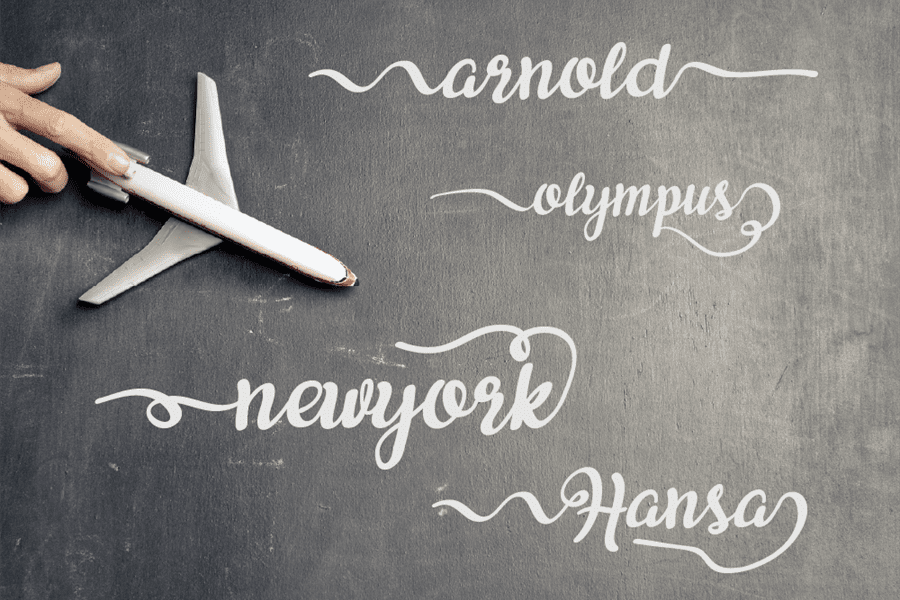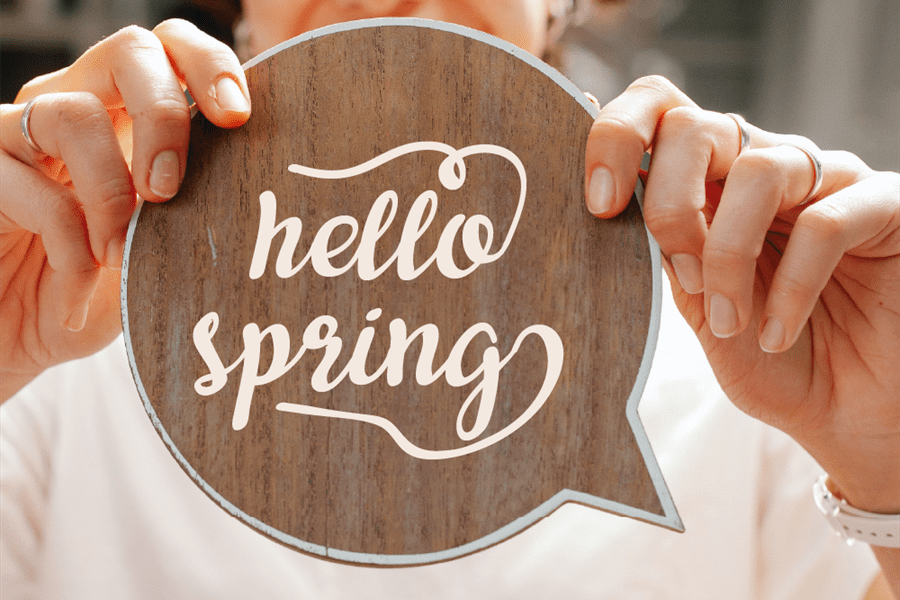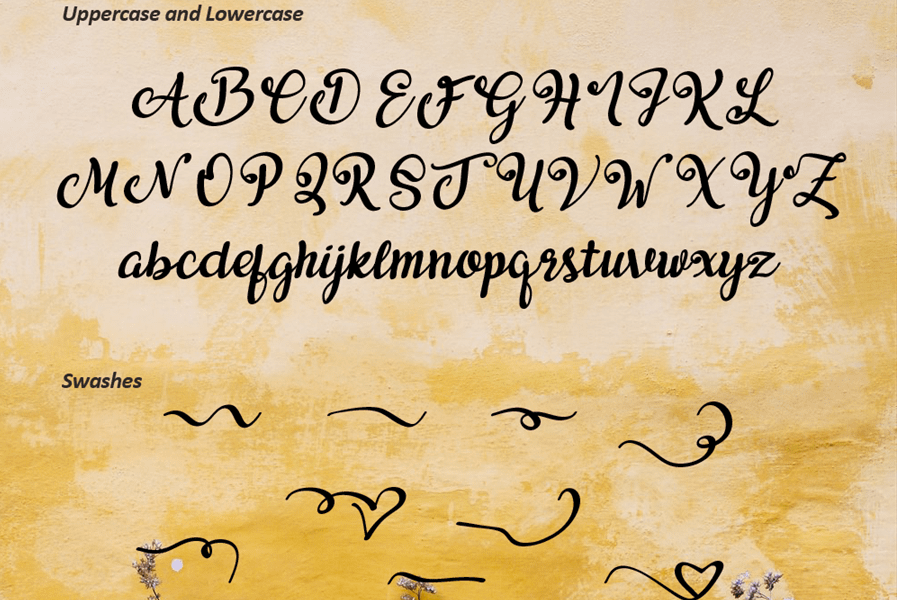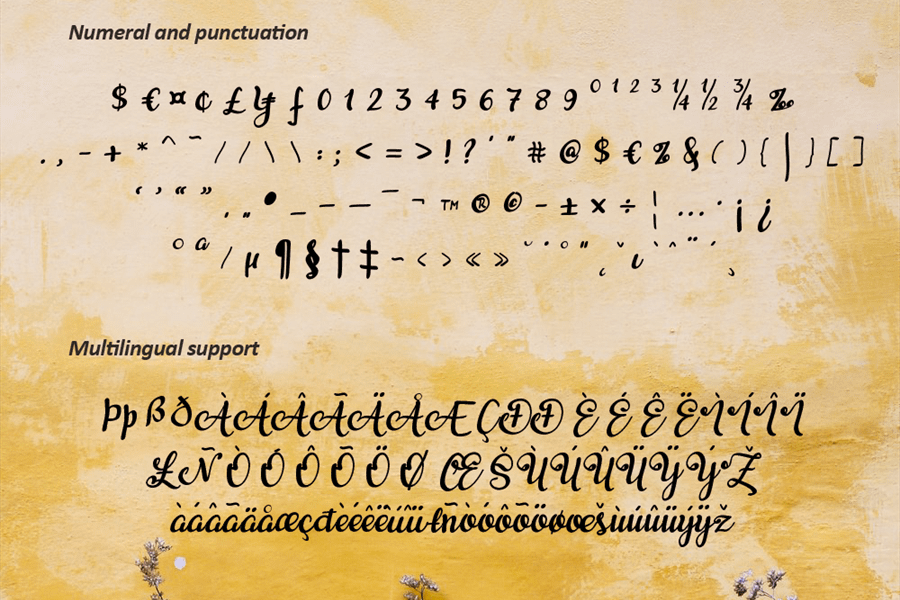
Aikaterine Font
Aikaterine Script Font
This is a Stylish Script font, with a natural & stylish flow. Aikaterine Font is perfect for many different project such as logos & branding, invitation, stationery, wedding designs, social media posts, advertisements, product packaging, product designs, label, photography, watermark, special events or anything.
FEATURES
– Uppercase and Lowercase letters
– Numbering and Punctuations
– Multilingual Support